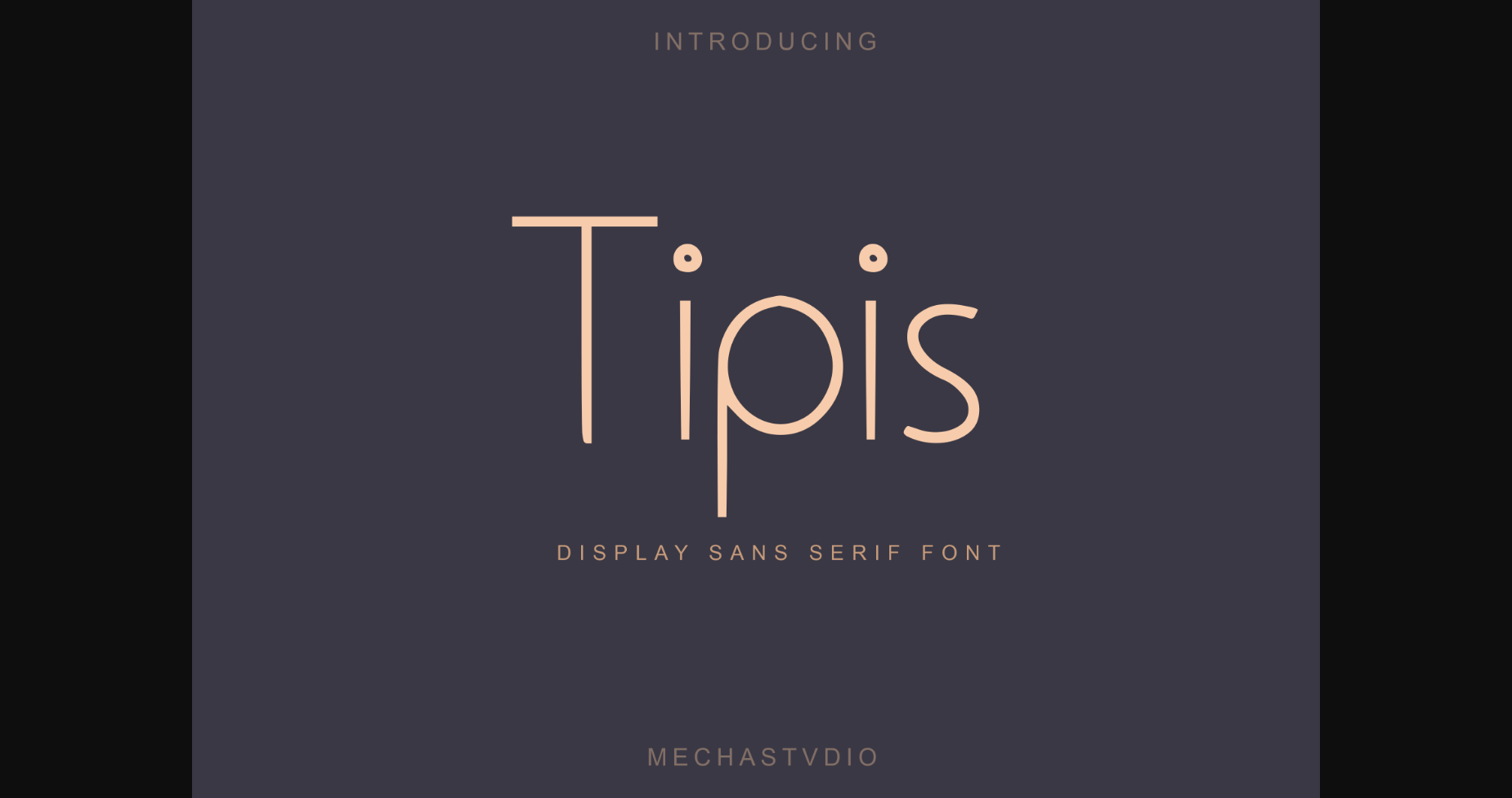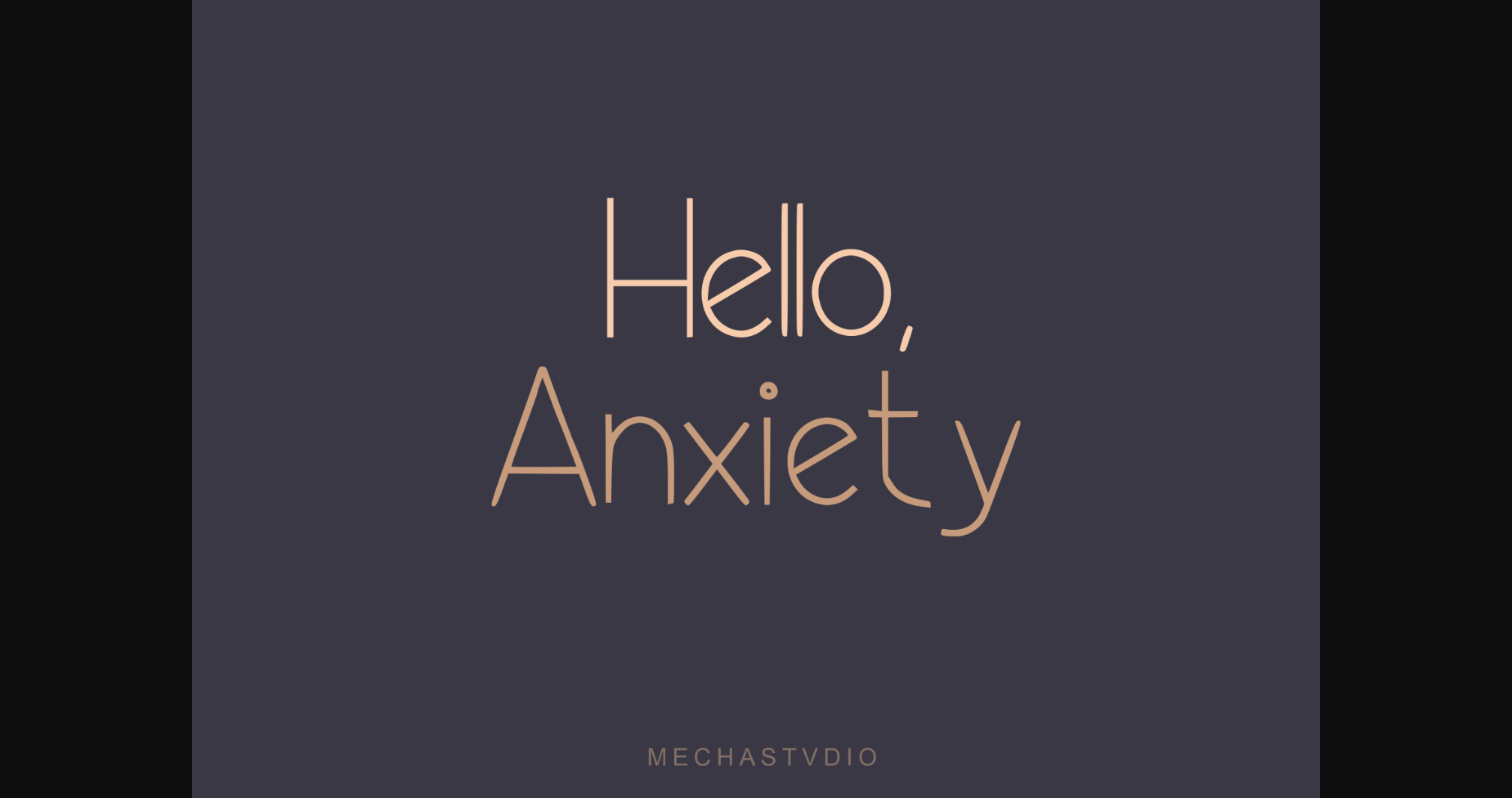
Tipis is a thin, cool, and minimalist display sans serif font. Its unique style is perfect for all your projects as it has the potential to transform them into a true standout.